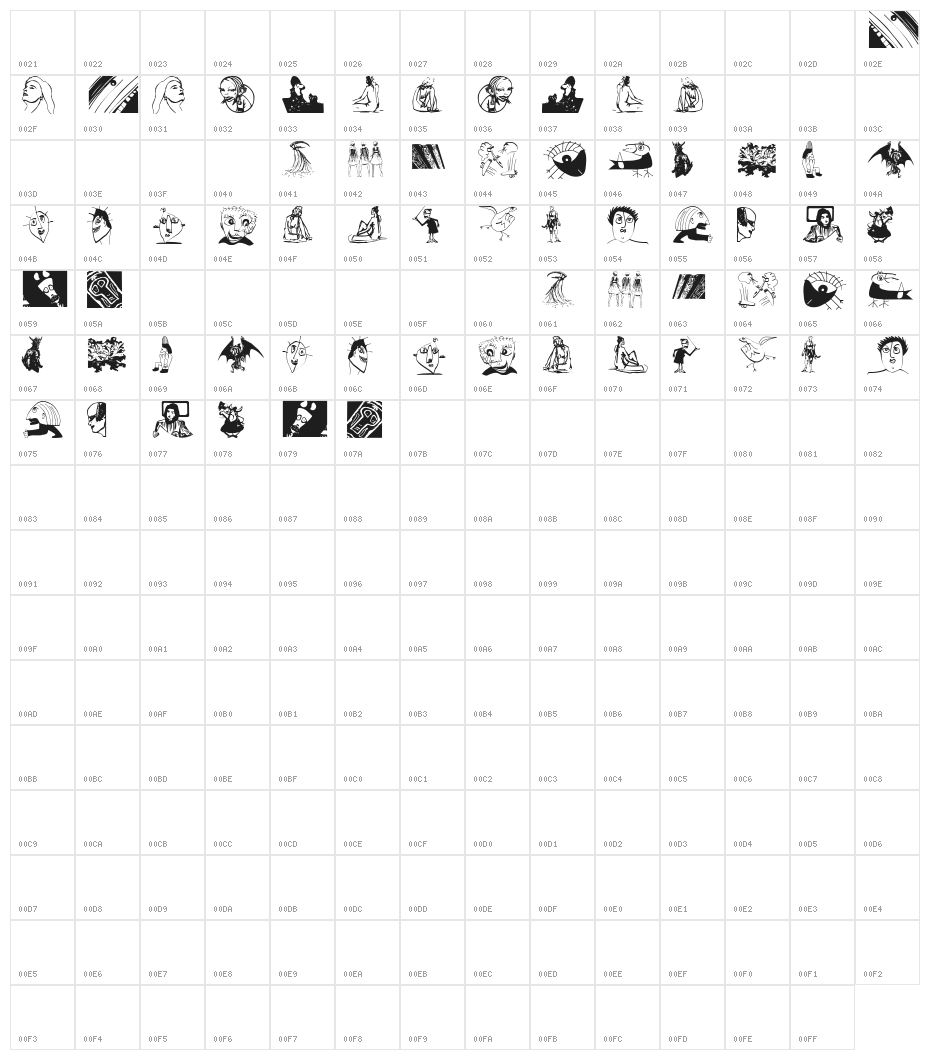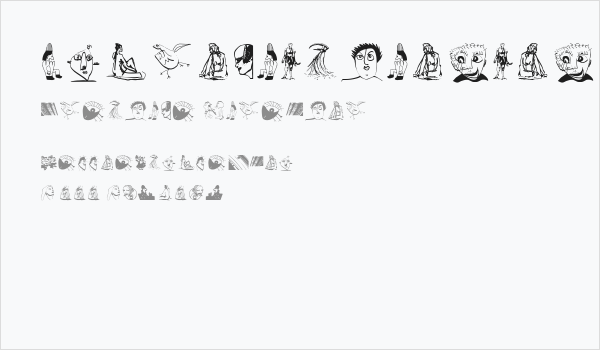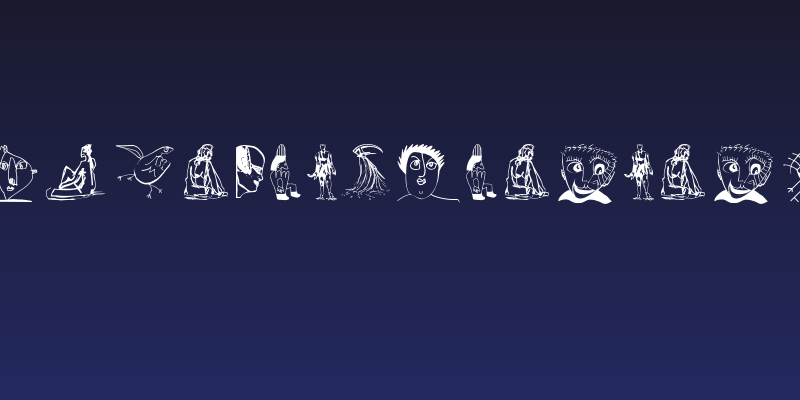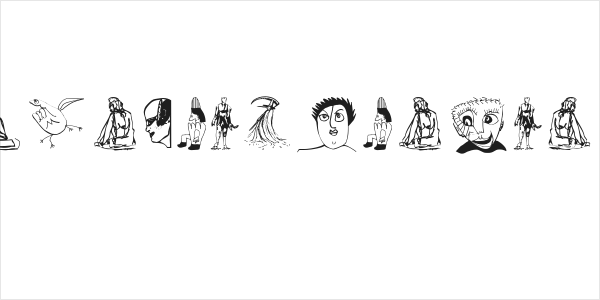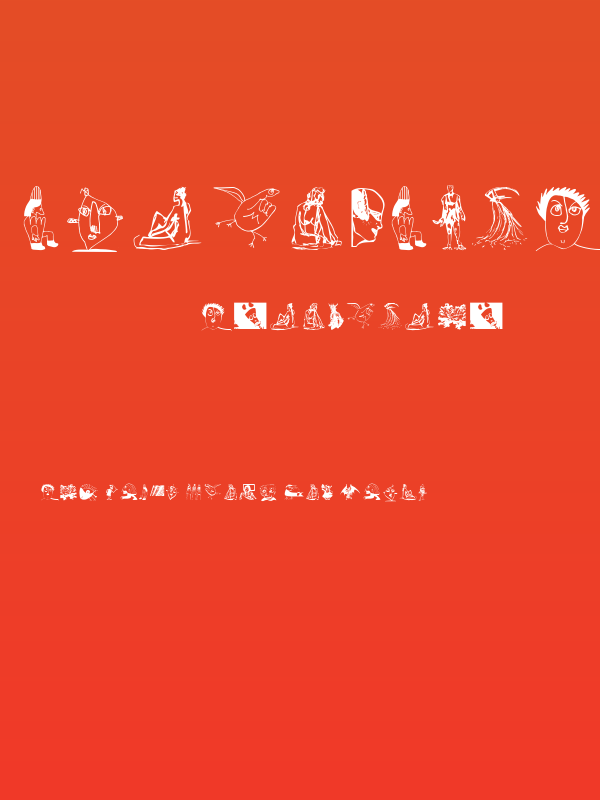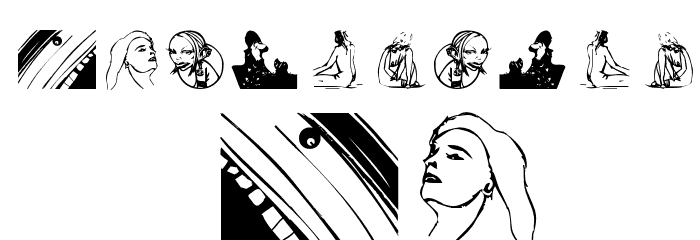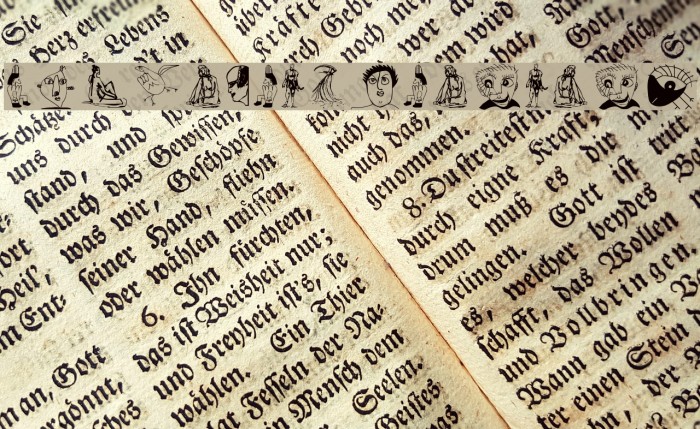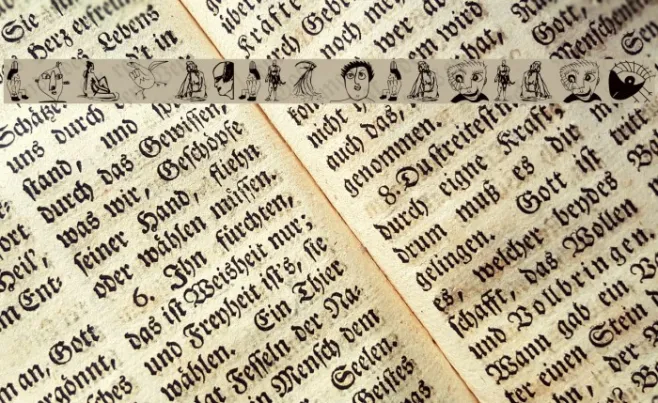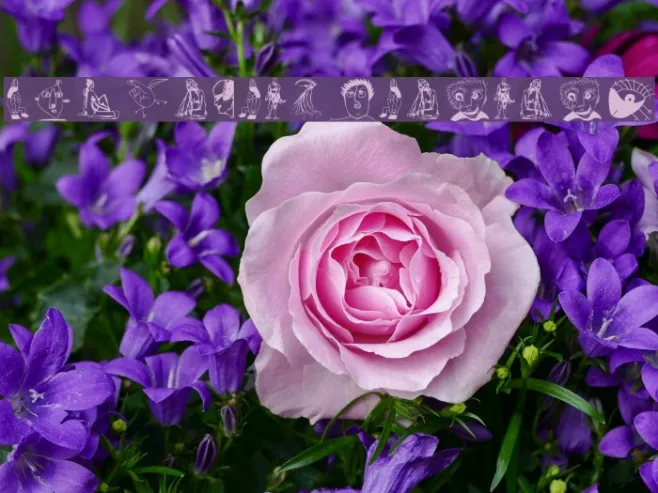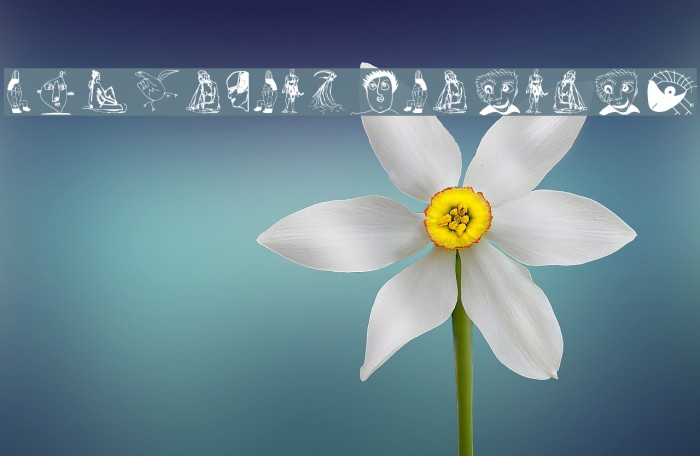
ImprovisationsOne Font
ImprovisationsOne Description
A highly decorative and illustrative font composed of unique, hand-drawn sketches and abstract figures in place of traditional alphanumeric characters. Each glyph is a distinct piece of art, featuring expressive faces, animals, and surreal scenes, resulting in a visually rich and unconventional typeface.
| Overall Style | Decorative, Artistic, Surreal |
| Use Case | Logos, Posters, Artistic projects, Headlines |
| Proposed Projects | Album covers, art posters, experimental branding, editorial illustrations, creative event invitations. |